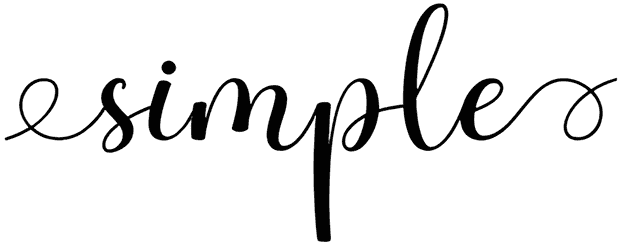
Simple Font
Let’s trim your forthcoming design with a genuine and elegant hand-lettering face. Simple as a script font with a feminine vibe and melodious curves go above. With this dream font, you can set up many illustrations, for instance, postcards, wedding invitations, covers, or more of the same, and create a memorable layout.